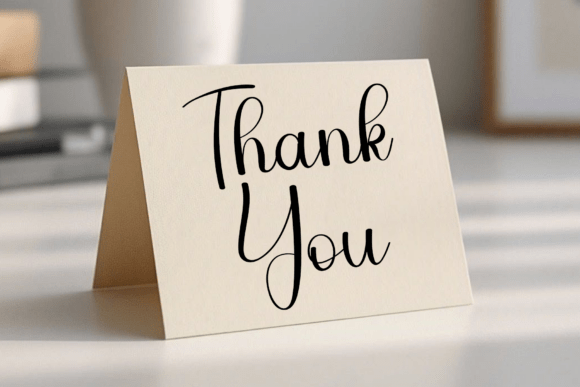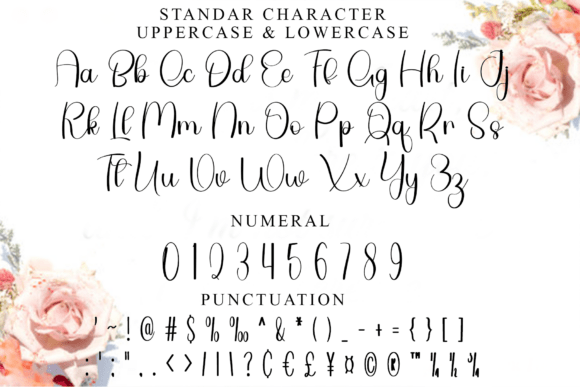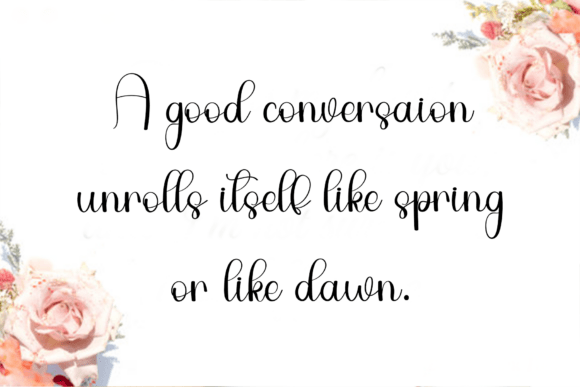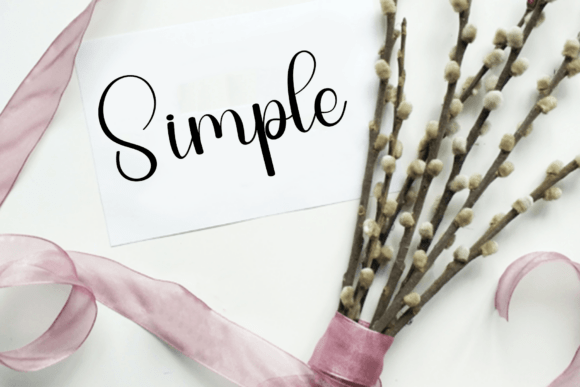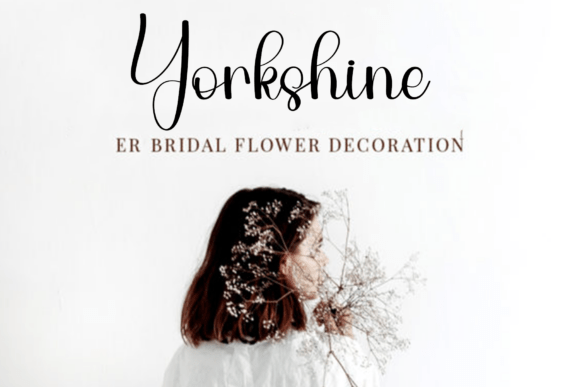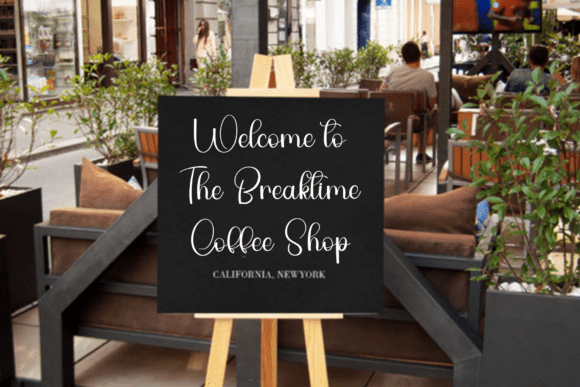
The Art of Romance: Capturing the Essence of the Perfect Wedding
Have you ever sat down with a blank sheet of paper, a cup of steaming coffee, and a flickering candle, waiting for the perfect idea to strike? As a designer, I’ve been there, and it’s moments like those that remind me why I love my job. The search for the perfect font, the perfect phrase, the perfect visual representation of a couple’s love story – it’s a quest that never gets old.
For those who share this passion, I’m excited to introduce you to a font that embodies the very essence of romance: Bride Signature Font. This stunning script font is designed to evoke the feeling of a handwritten note, with fluid strokes and elegant loops that transport you to a bygone era of luxury and elegance. As a designer, you’ll appreciate the versatility and sophistication of Bride Signature Font, making it the perfect choice for wedding invitation suites, boutique bridal branding, and more.
Bride Signature Font Key Features
- Font Style: Elegant, cursive script font with a touch of romance and sophistication.
- Unique Characteristics: Includes ligatures, swashes, and flourishes to add a personal touch to wedding invitations, stationery, and other wedding-related designs.
Bride Signature Font Review
I recently had the chance to try out the Bride Signature Font, and I must say it’s a unique addition to any wedding invitation or stationery collection. ✨ The font’s elegant, cursive design makes it perfect for adding a touch of sophistication and romance to your wedding materials.
The font comes with a range of customization options, including size, color, and spacing adjustments. This makes it easy to tailor the font to your specific needs and style preferences. ✨ The font also includes a range of ligatures and swashes, which can add an extra level of flair and personality to your designs.
- Unique, elegant design
- Customization options for size, color, and spacing
- Ligatures and swashes for added flair
- May not be suitable for very formal or traditional wedding designs
- Can be a bit difficult to read in smaller sizes
- No bold or italic versions available
Overall, I think the Bride Signature Font is a great choice for couples looking to add a touch of elegance and romance to their wedding stationery. While it may have some limitations, the customization options and unique design make it a great addition to any wedding design collection.
Bride Signature Font: A Practical Application Guide
The Bride Signature Font is commonly used in wedding stationery, such as:
- Wedding invitations
- Save-the-date cards
- Wedding programs
Alternatives to Bride Signature Font for Designers
Great Vibes is a beautiful, elegant script font perfect for wedding invitations, stationery, and other special occasions. It’s ideal for those who want a classic, sophisticated look without the bold lines of Bride Signature Font. Great Vibes has a more refined and delicate feel, making it suitable for formal events or vintage-themed weddings.
Comparison: Great Vibes has a more subtle and refined feel compared to Bride Signature Font, which has a bolder and more dramatic appearance.
Carolyna Pro is a modern, elegant script font that’s ideal for wedding invitations, branding, and other design projects. It has a softer and more refined look compared to Bride Signature Font, making it suitable for a variety of design styles and themes. Carolyna Pro is perfect for those who want a clean and sophisticated look without the bold lines of Bride Signature Font.